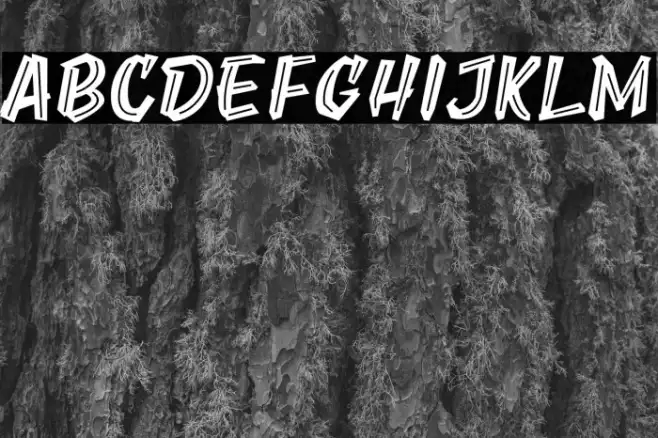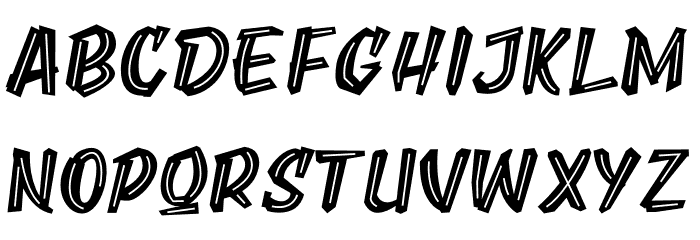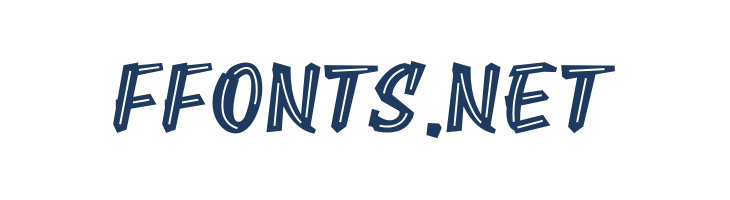
Leader Kids Font
Leader Kids Description
This font features a bold and dynamic style with a playful and energetic appearance. The characters are designed with a three-dimensional effect, giving them a shadowed look that adds depth and movement. The strokes are thick and consistent, creating a strong visual impact. The font is highly legible, with each letter distinct and easily recognizable. The uppercase and lowercase letters maintain a uniform style, while the numerals and special characters complement the overall design. This font is ideal for projects that require a fun and lively touch.
| Overall Style | Playful, Energetic |
| Proposed Projects | Ideal for children's book covers, playful branding, posters, and event invitations. |